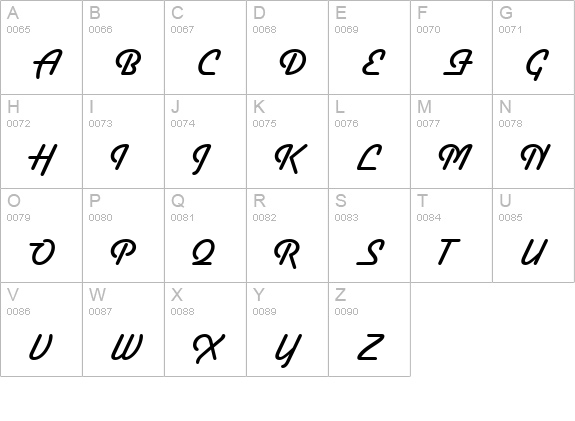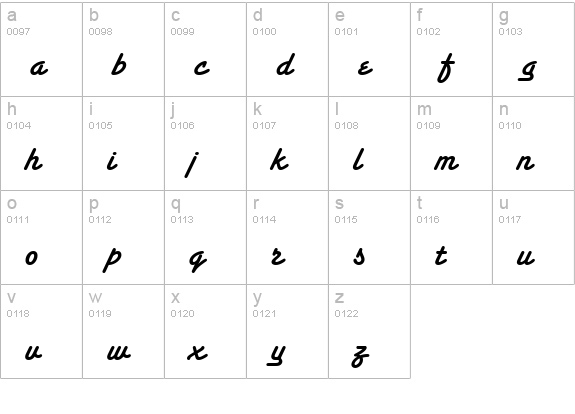
Santa Fe Com Font Details
Santa Fe Com is a free for personal use font in the Script > Cursive category, designed by FontsMarket2023. It has been downloaded 57 times and is available for Windows, Mac and Linux.
Santa Fe Com is a beautifully crafted, modern font with a touch of sophistication. Its elegant curves and clean lines make it perfect for a wide range of design projects, from branding to packaging to editorial design. This versatile font exudes a sense of style and professionalism, making it an excellent choice for those looking to elevate their designs.